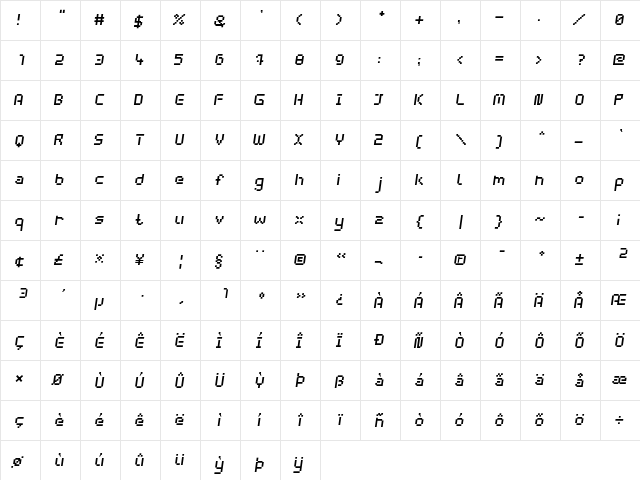
webpixel bitmap Medium-Italic
Design Context for webpixel bitmap Typeface
webpixel bitmap is rooted in pixel-grid construction, making it a natural fit for game UI, retro computing aesthetics, and digital nostalgia projects. The dynamic lean of this cut emphasises speed and emphasis in any layout.
Well-suited to indie game interfaces, retro computing aesthetics, and pixel art-adjacent design work.
Pro Tip: Use webpixel bitmap at sizes that align with its pixel grid for the sharpest rendering — scaling to non-integer multiples can introduce unwanted blur.